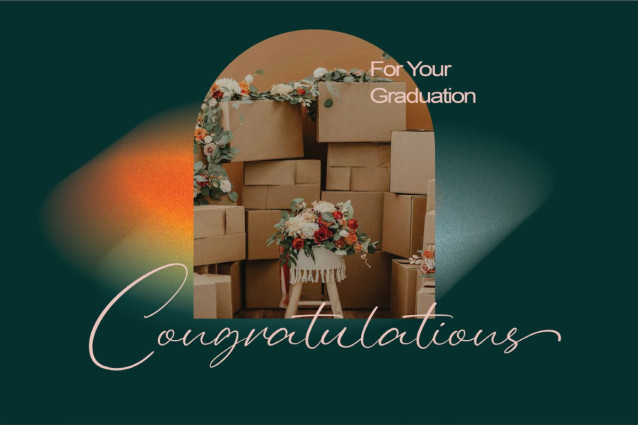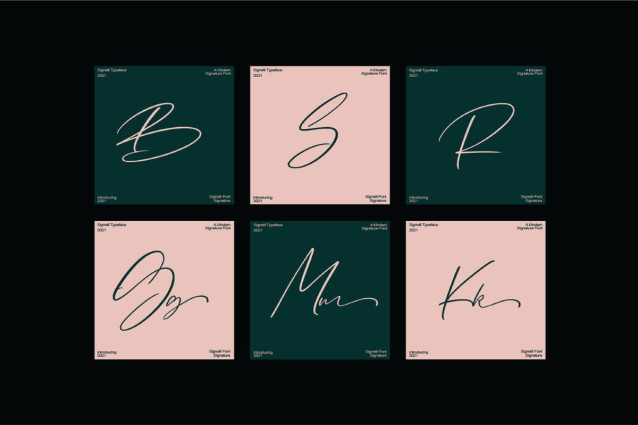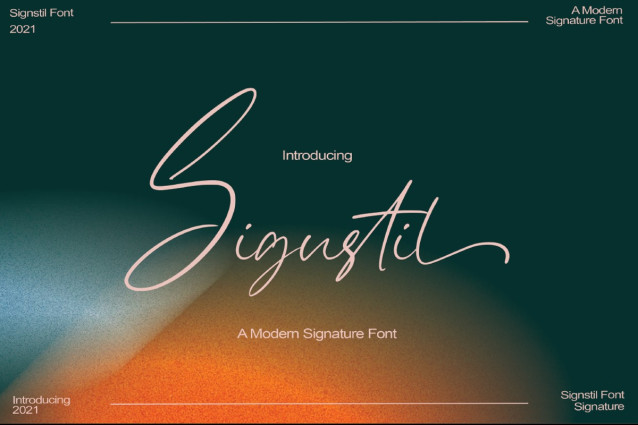
Sigustil Signature Font
Sigustil Signature Font is a signature font with a natural handwritten look. It is equipped with swashes, ligatures, and multiple styles to make it a versatile font. The Sigustil can be used for various purposes such as: signatures, watermarks, magazines, quotes, website, titles and much more!